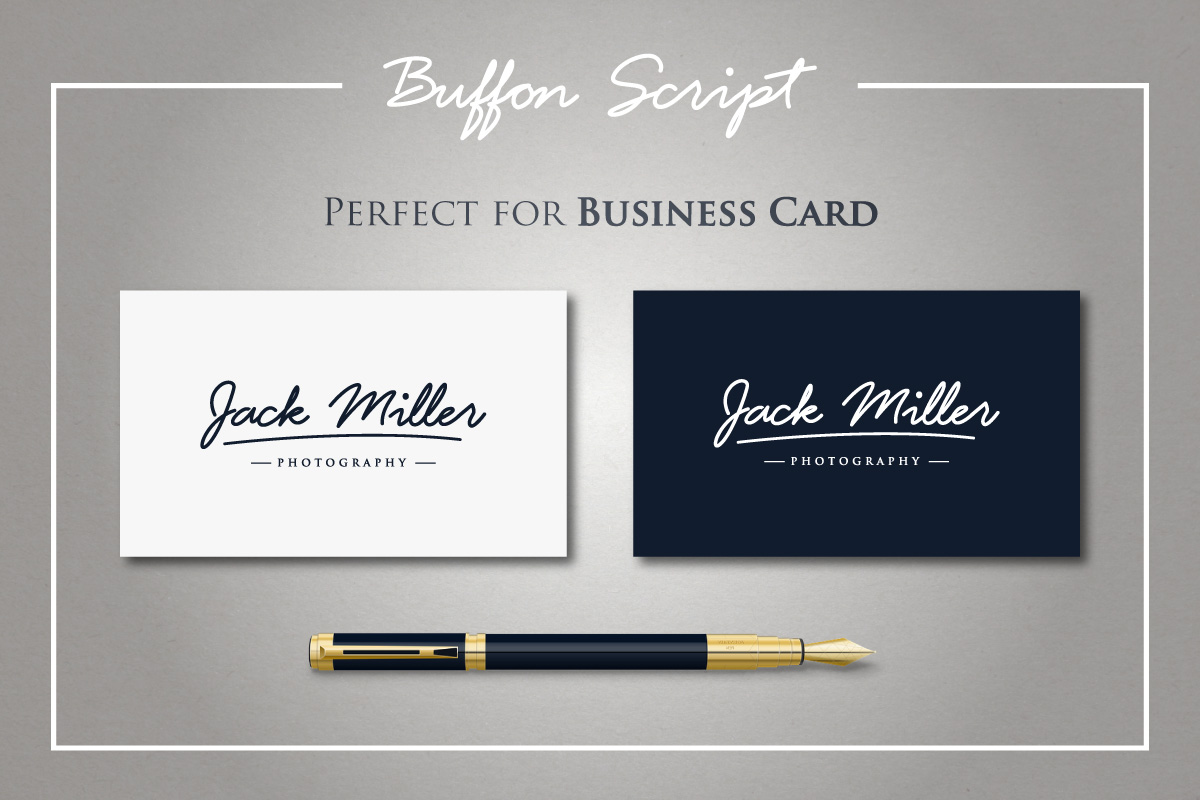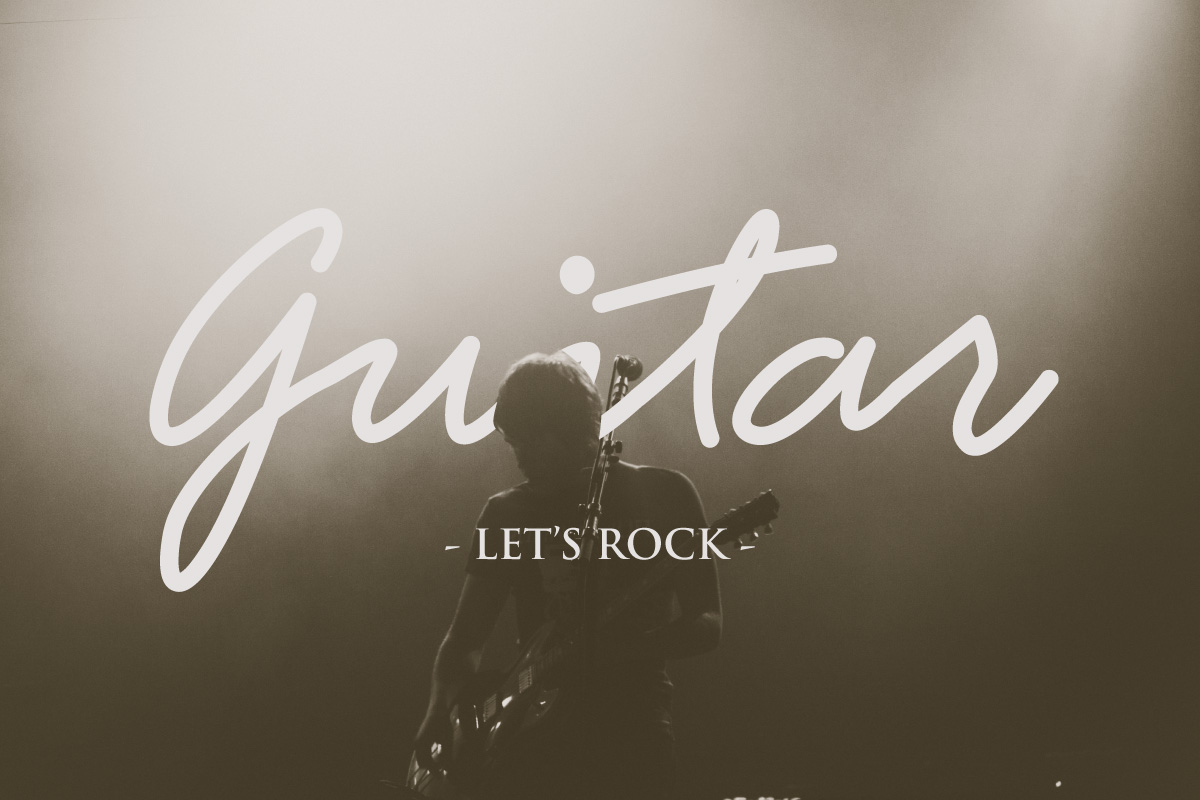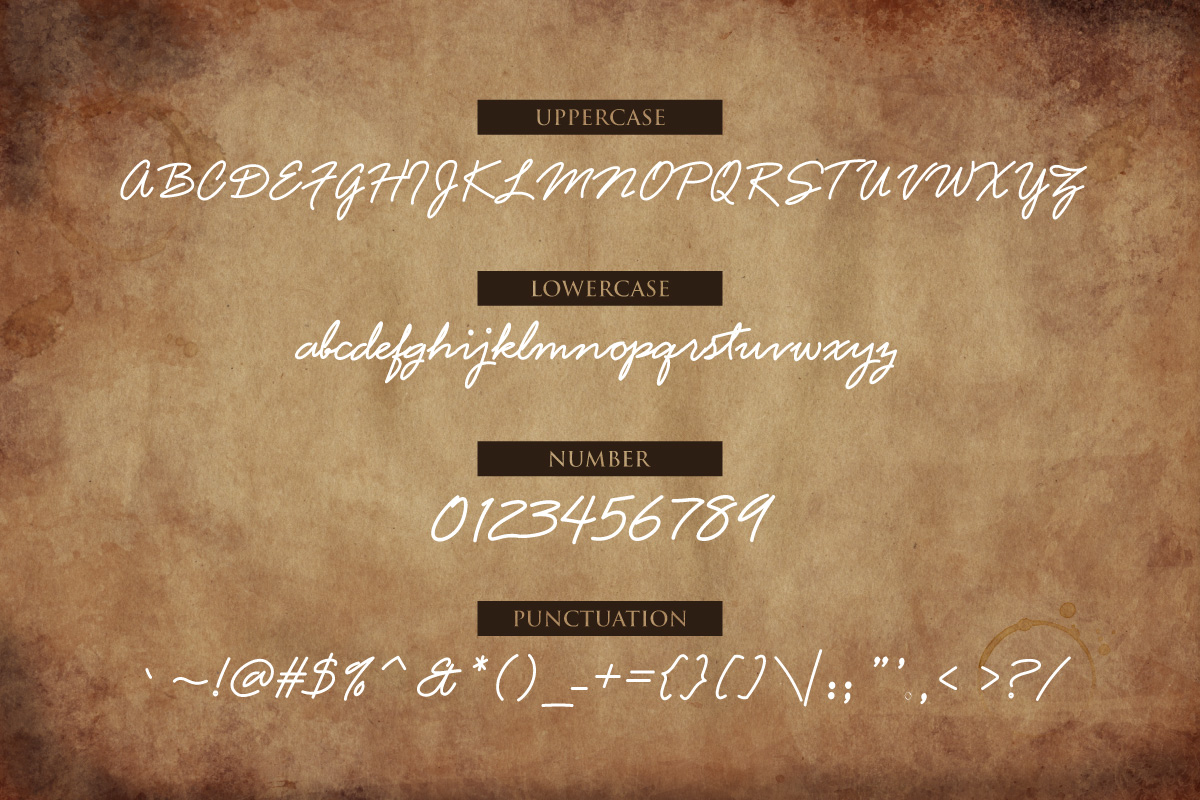
Introducing Buffon Font: A Handcrafted Script with a Personal Touch
In the world of typography, few fonts manage to capture the essence of handcrafted elegance. Buffon Font, created by Kang1993, is one such gem that brings a personal touch to the digital realm. This beautifully crafted script font is a testament to the art of lettering and the creativity of its designer.
The Story Behind Buffon Font
Buffon Font is a handcrafted script created by Kang1993, a talented designer with a passion for typography. The font is named after the famous French mathematician and naturalist, Georges Louis Leclerc, Comte de Buffon. Inspired by the elegance of traditional calligraphy, Kang1993 set out to create a font that would evoke a sense of sophistication and refinement.
Buffon Font boasts a range of distinctive design characteristics that set it apart from other script fonts. Its handcrafted nature gives it a unique, organic feel that is both visually appealing and highly legible. The font features:
- Fluid connections: Buffon Font’s letters are connected by fluid strokes, creating a sense of movement and flow.
- Intricate details: The font is adorned with intricate details, such as subtle swashes and flourishes, that add to its elegance.
- Variations in line width: The font’s line width varies, giving it a dynamic and handcrafted feel.
Uses and Applications
Buffon Font’s versatility makes it suitable for a wide range of applications, including:
- Branding and logos: The font’s unique character makes it an excellent choice for logos and branding materials.
- Wedding and event invitations: Buffon Font’s elegance and sophistication make it perfect for wedding and event invitations.
- Packaging and product design: The font’s handcrafted feel makes it an excellent choice for packaging and product design.
- Digital and print media: Buffon Font can be used in a variety of digital and print media, including magazines, newspapers, and websites.
Why Choose Buffon Font?
With so many fonts available, why choose Buffon Font? Here are a few compelling reasons:
- Uniqueness: Buffon Font’s handcrafted nature makes it a unique addition to any design project.
- Elegance: The font’s sophisticated feel makes it perfect for high-end branding and design projects.
- Legibility: Despite its intricate details, Buffon Font remains highly legible, making it suitable for a wide range of applications.
Tips for Using Buffon Font
To get the most out of Buffon Font, here are a few tips:
- Use it sparingly: Buffon Font’s elegance can be overwhelming if overused. Use it sparingly to create a lasting impact.
- Pair it with contrasting fonts: Pair Buffon Font with contrasting fonts to create visual interest and hierarchy.
- Experiment with colors and textures: Buffon Font’s handcrafted feel lends itself well to experimentation with colors and textures.
| Font Name | Buffon Font |
| Author | Kang1993 |
Buffon Font is a handcrafted script that brings a personal touch to the digital realm. Its unique design characteristics, versatility, and elegance make it an excellent choice for designers and crafters. Whether you’re looking to create a stunning logo, elegant wedding invitation, or eye-catching packaging, Buffon Font is sure to impress.